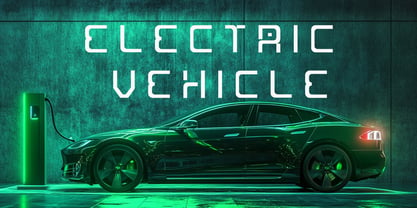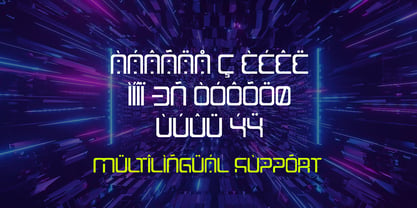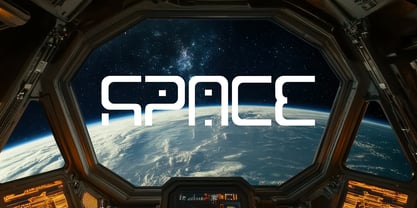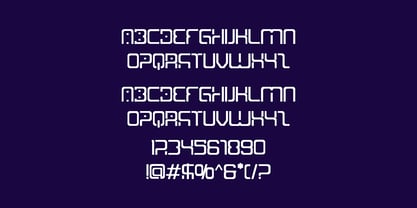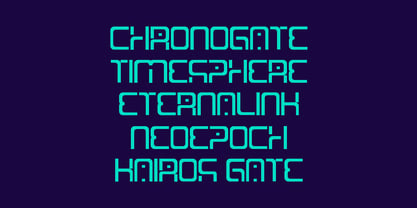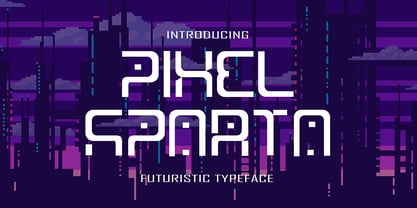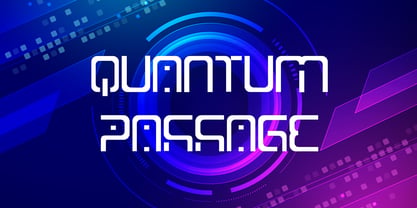
Pixel Sparta
by Sipanji21
The Pixel Sparta Font Family was designed by Sipanji and published by Sipanji21. Pixel Sparta contains 1 styles. More about this family
Pixel Sparta is a bold futuristic typeface that merges the clean precision of digital design with the raw energy of pixel-inspired aesthetics. Perfect for projects that demand a strong, modern identity, this font draws inspiration from cyberpunk culture, sci-fi gaming, and retro arcade visuals. The letterforms are crafted with geometric sharpness and futuristic curves, giving each character a high-tech personality that is instantly recognizable.
Designed as a display typeface, Pixel Sparta is best used for headlines, logos, posters, and branding that need to stand out with a futuristic edge. Its bold construction makes it highly legible at large sizes, while the pixel-influenced details add uniqueness and style. Whether you’re designing an esports logo, creating a streaming overlay, or crafting promotional material for a sci-fi event, this typeface delivers impact and energy.
Pixel Sparta is not only visually powerful but also versatile. It works seamlessly across both print and digital platforms, making it suitable for posters, apparel design, product packaging, and social media campaigns. Its modern cyberpunk influence allows designers to explore creative possibilities in tech, gaming, and entertainment industries. The font’s futuristic vibe is ideal for projects that embrace digital culture, from indie game design to cinematic branding.
Ultimately, Pixel Sparta is more than just a typeface—it’s a tool for storytelling. It captures the essence of futuristic design, blending pixel-art nostalgia with sleek digital innovation. For designers looking to inject energy, style, and modernity into their work, Pixel Sparta is the perfect choice.